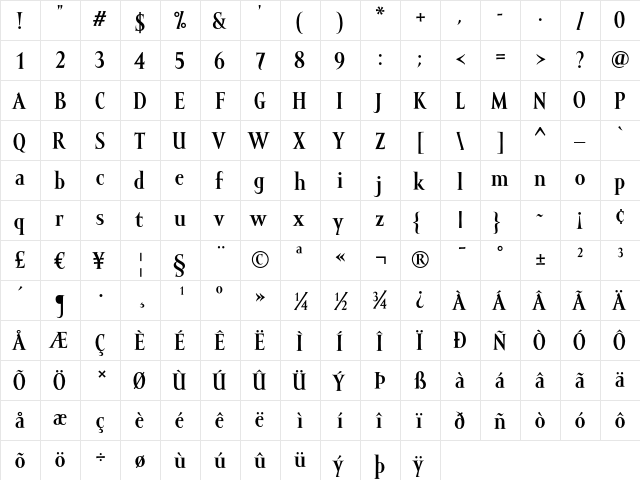
Mramor Bold
Bold · Frantisek Storm, www.stormtype.com  ·
Design Context for Mramor Typeface
Mramor offers clean, dependable letterforms without strong stylistic allegiance, making it a practical choice for designers who need flexibility. Its bold stroke weight gives it real presence on the page.